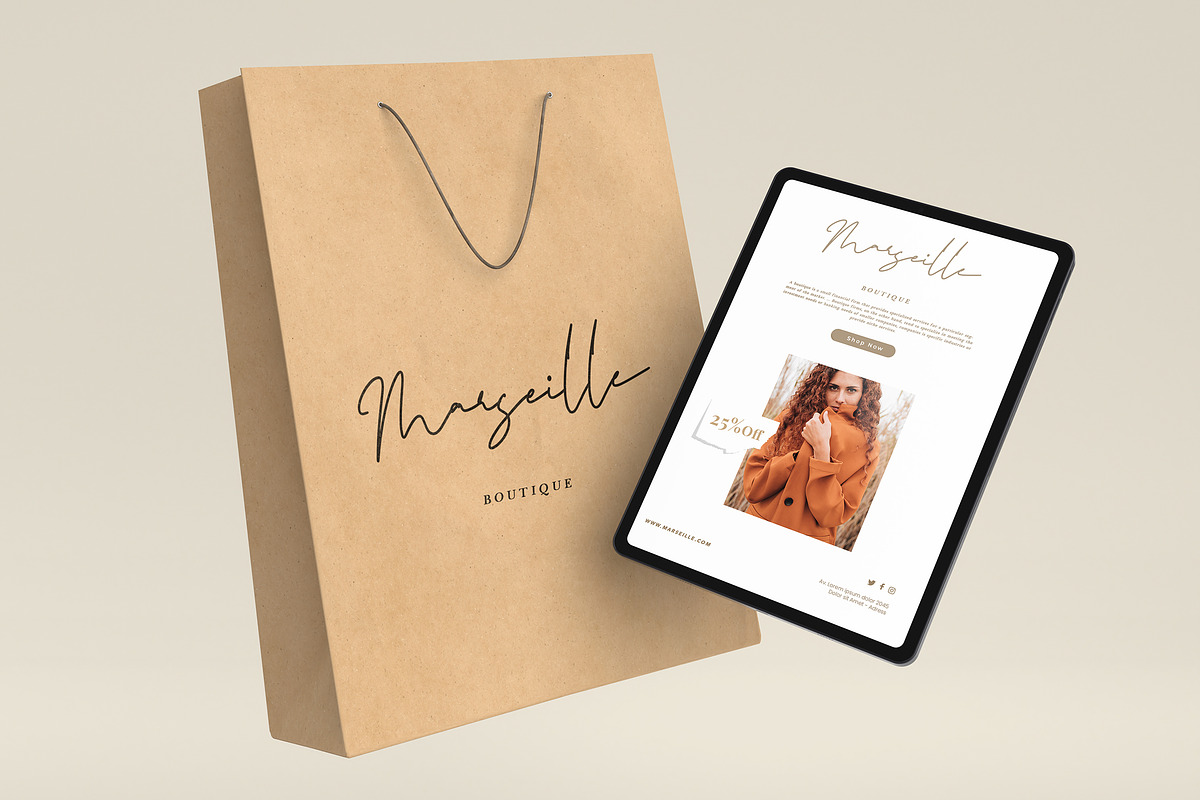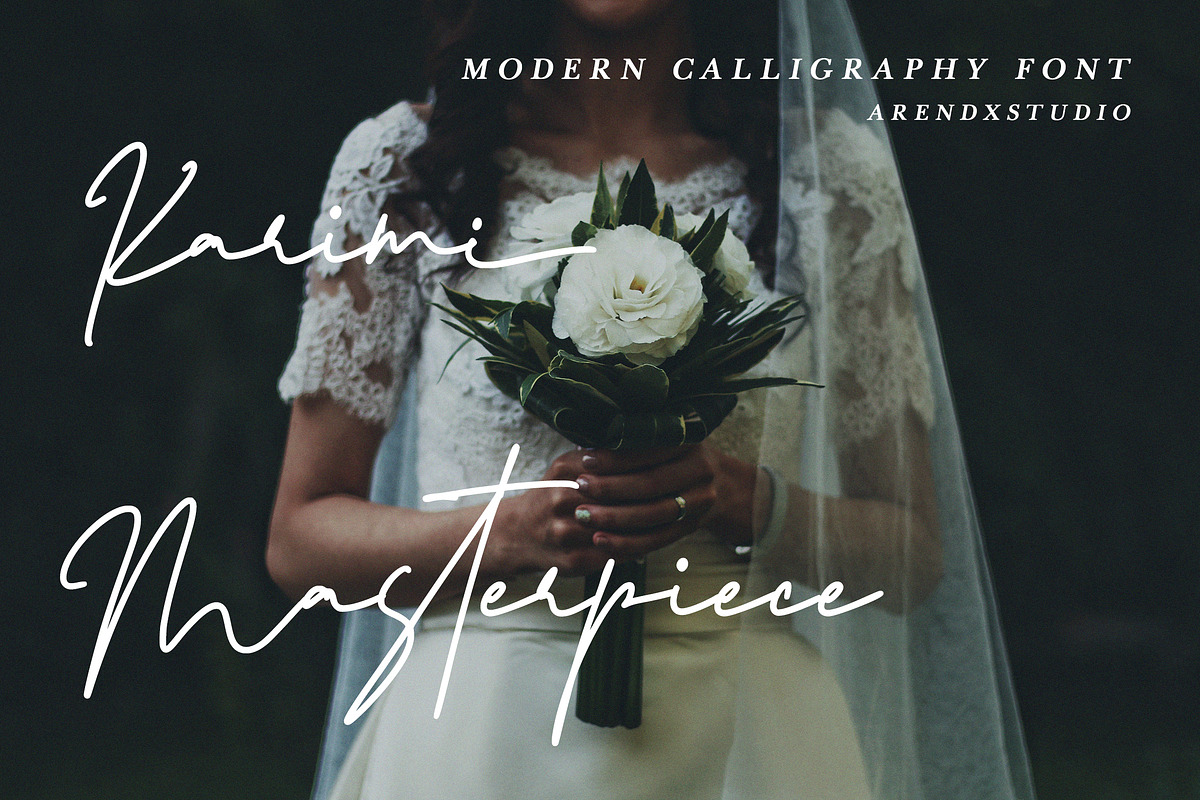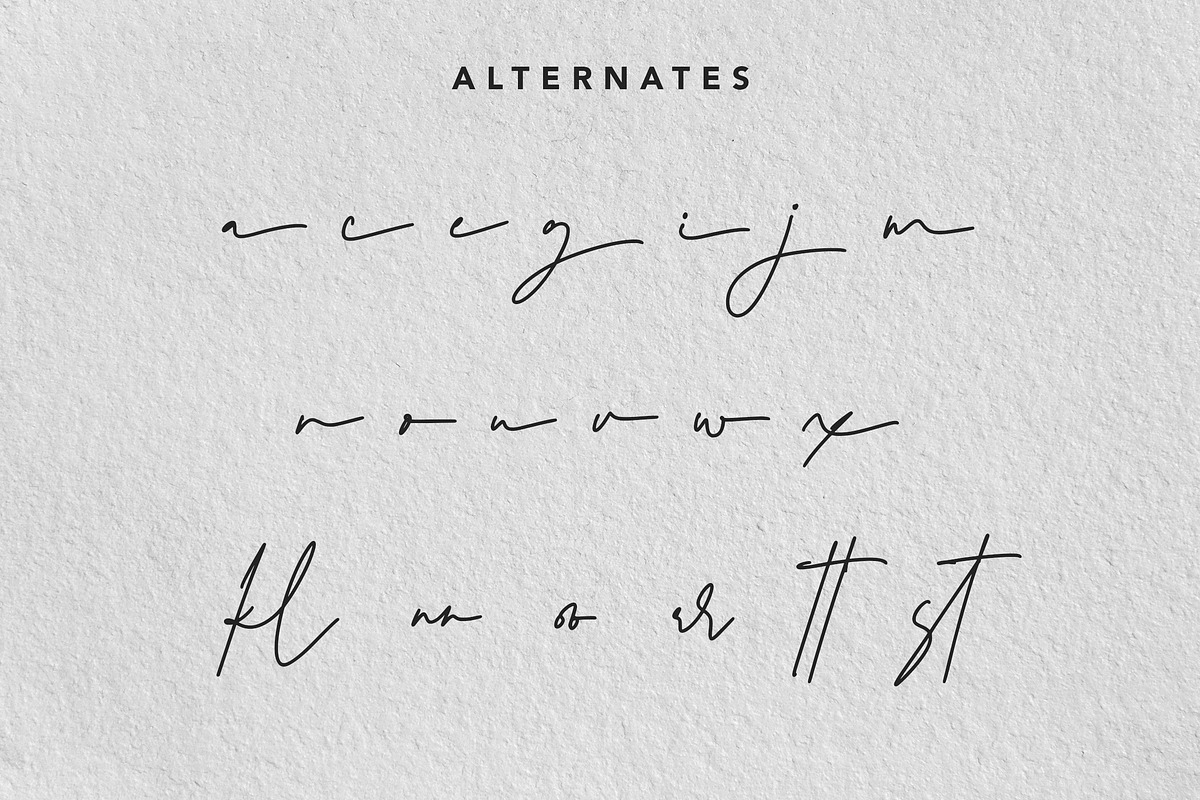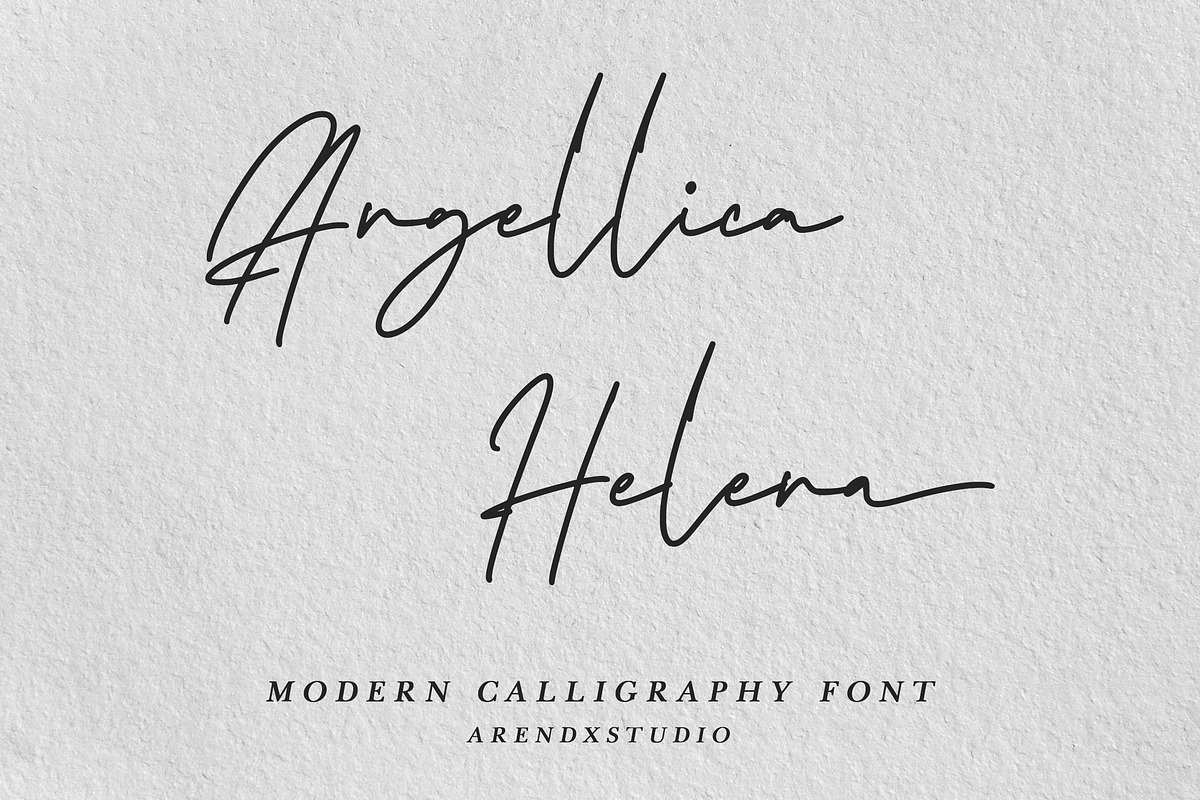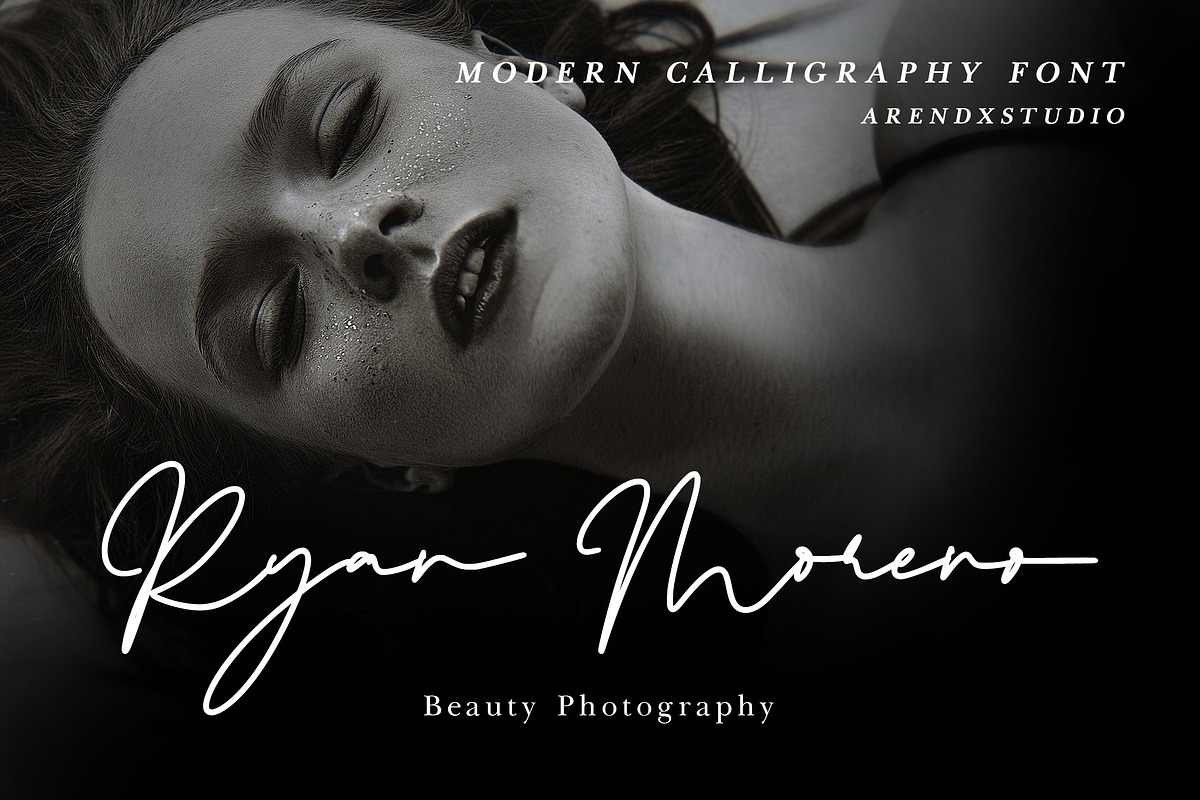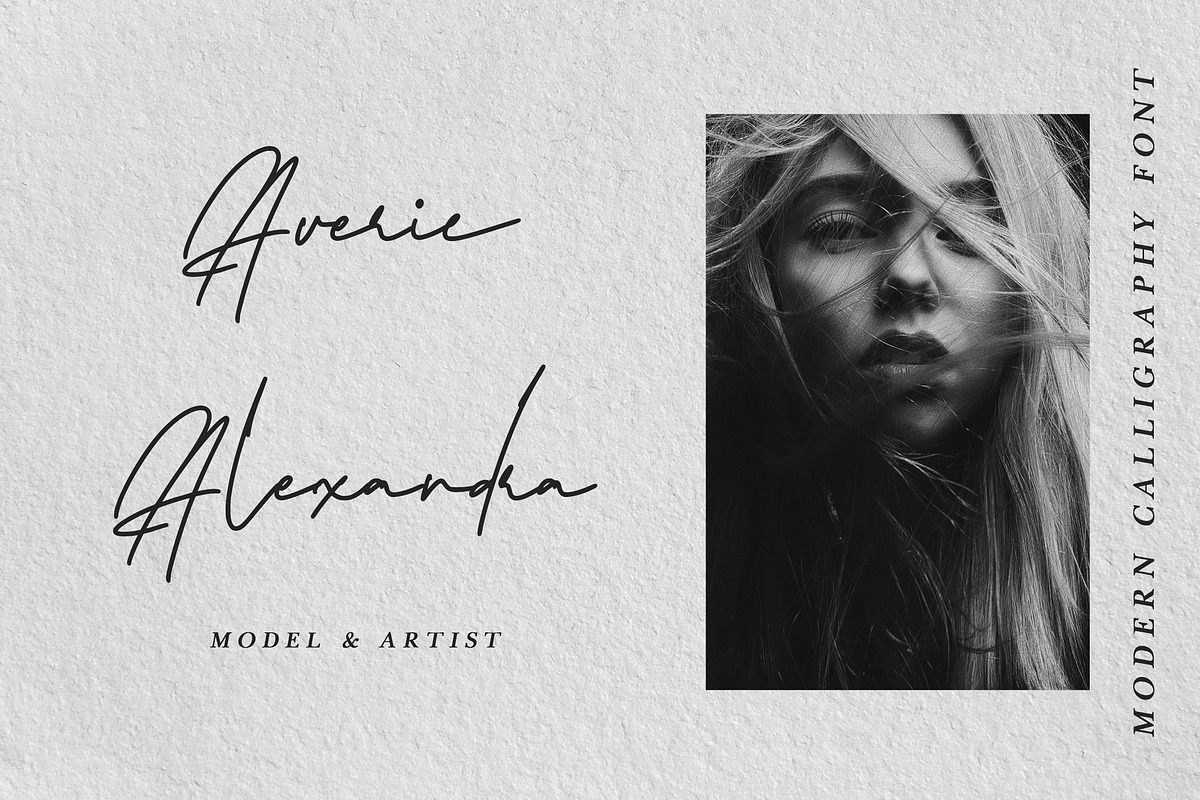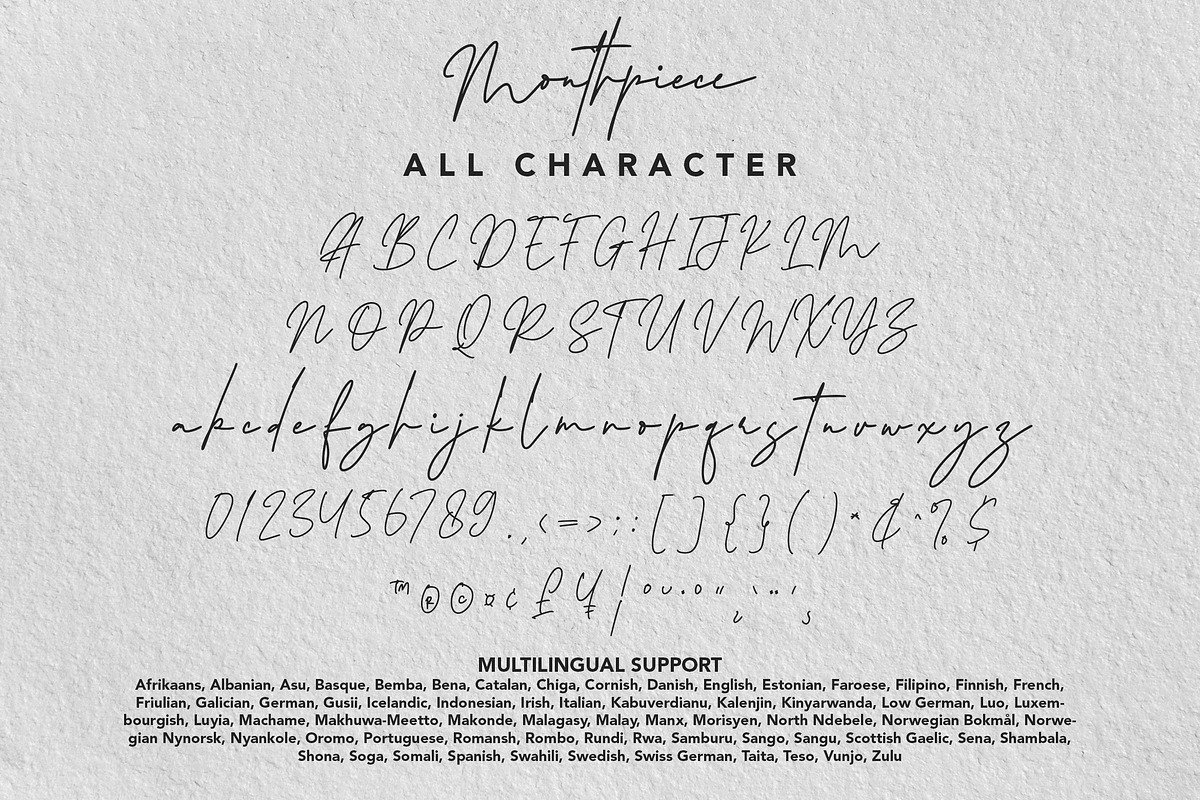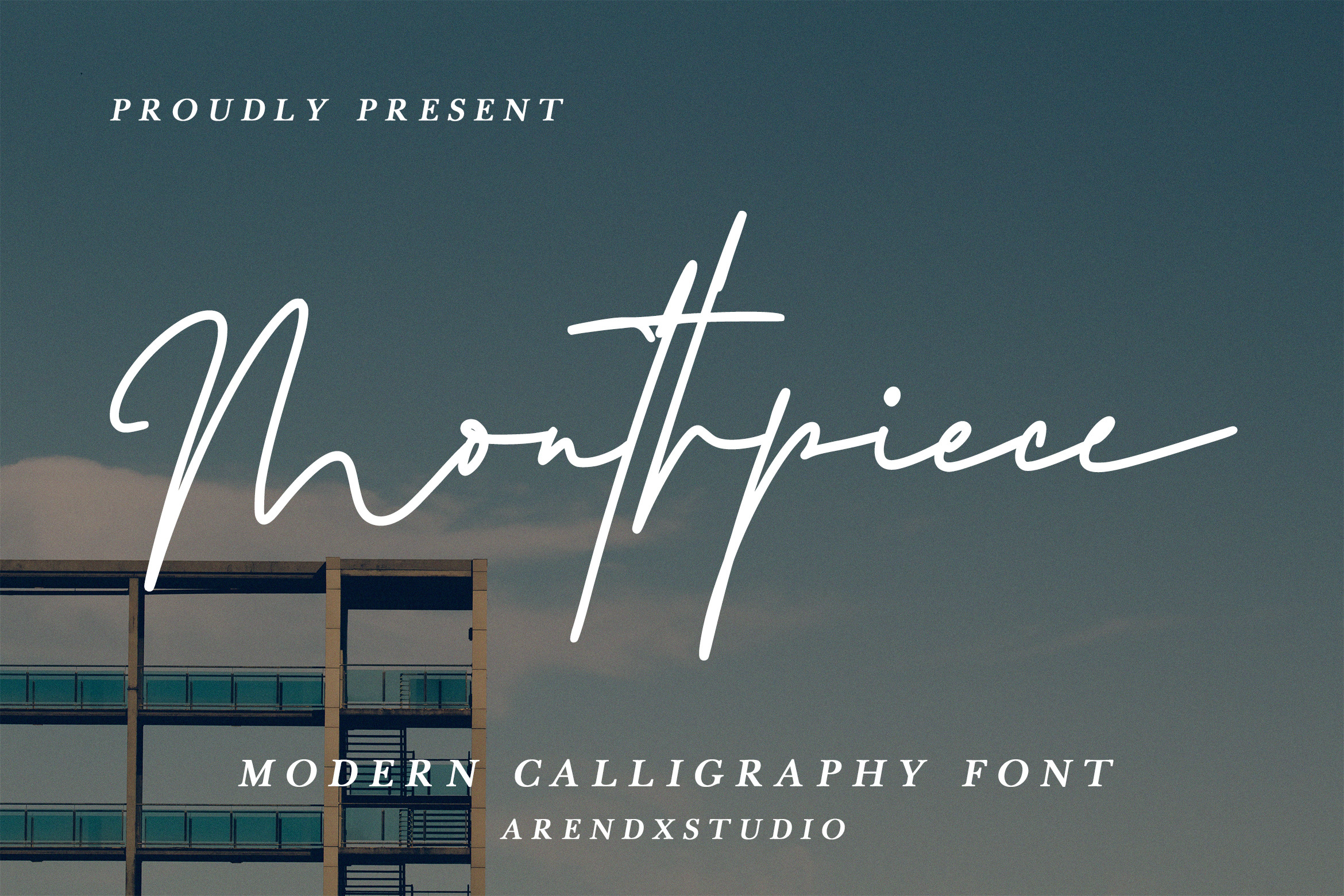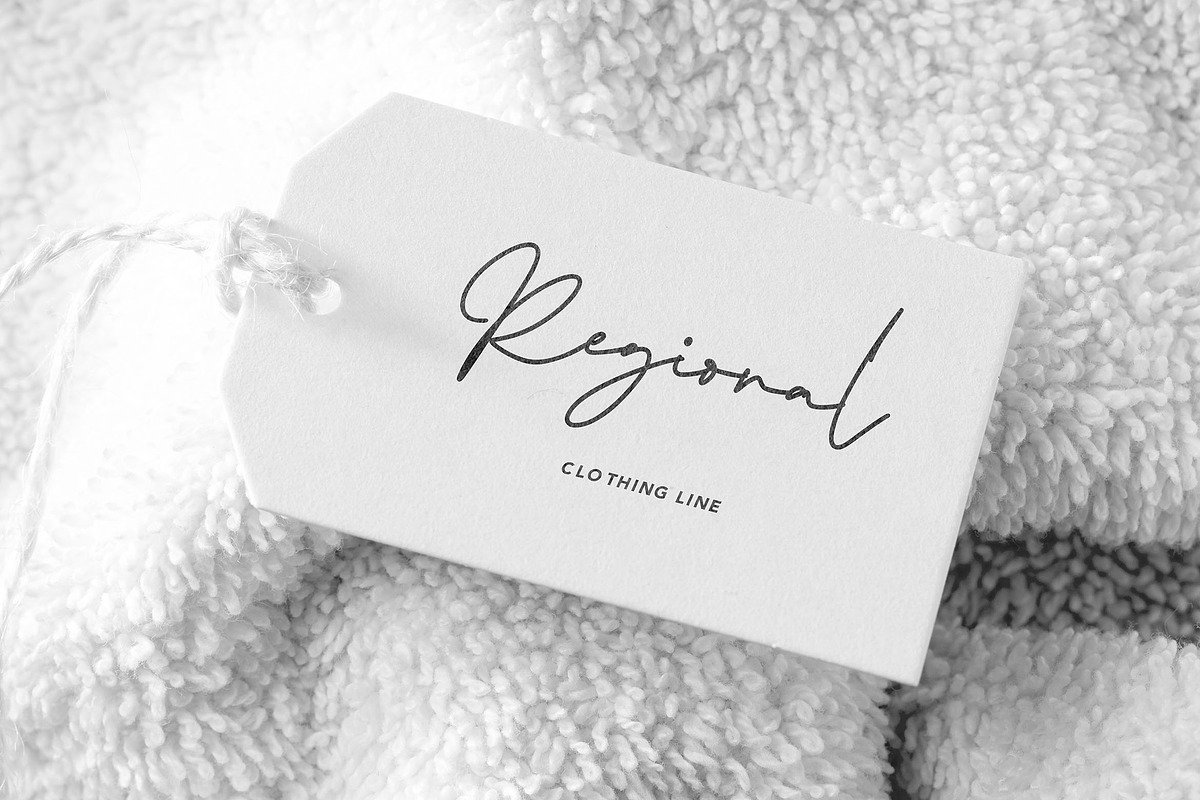
Mouthpiece - Modern Calligraphy Font
Mouthpiece - Modern Calligraphy Font is a font with distinctive handwritten characters perfect for branding projects, logos, wedding designs, media posts, advertisements, product packaging, product designs, labels, photography, watermarks, invitations, stationery, and any project who need handwritten dishes.
Features : • Character Set A-Z • Numerals & Punctuations (OpenType Standard) • Accents (Multilingual characters) • Ligature
Multilingual Support : Afrikaans, Albanian, Asu, Basque, Bemba, Bena, Catalan, Chiga, Cornish, Danish, English, Estonian, Faroese, Filipino, Finnish, French, Friulian, Galician, German, Gusii, Icelandic, Indonesian, Irish, Italian, Kabuverdianu, Kalenjin, Kinyarwanda, Low German, Luo, Luxembourgish, Luyia, Machame, Makhuwa-Meetto, Makonde, Malagasy, Malay, Manx, Morisyen, North Ndebele, Norwegian Bokmål, Norwegian Nynorsk, Nyankole, Oromo, Portuguese, Romansh, Rombo, Rundi, Rwa, Samburu, Sango, Sangu, Scottish Gaelic, Sena, Shambala, Shona, Soga, Somali, Spanish, Swahili, Swedish, Swiss German, Taita, Teso, Vunjo, Zulu